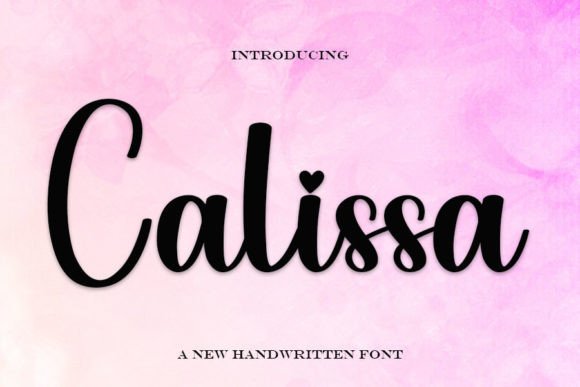
Journey into the world of refined elegance with Calissa Font, a captivating script font that will leave you spellbound. Experience the fusion of timeless beauty and modern aesthetics as you create designs that exude charm and sophistication. Let Calissa's graceful strokes and elegant curves transport you to a realm of creative possibilities.
Indulge in the allure of Calissa's distinct character, masterfully crafted by the skilled hands of putrasyahreza00. Each letter dances across the page with a unique flair, adding a touch of personality to your projects. Its effortless flow and impeccable balance create a visual symphony that will captivate your audience.
Unleash your creativity and let Calissa guide you towards stunning designs. Its versatility knows no bounds, making it the perfect choice for a wide range of projects. Whether you're crafting logos, branding materials, website designs, or social media graphics, Calissa will elevate your work to new heights.
With Calissa Font, you'll discover a world of endless possibilities. Its elegant charm will add a touch of sophistication to your wedding invitations, greeting cards, and personal stationery. Create eye-catching posters, flyers, and brochures that demand attention. Transform your social media posts into works of art, capturing the hearts of your followers.
Calissa Font is more than just a font; it's an artistic expression that will bring your creative visions to life. Embrace its timeless beauty and let your imagination soar. Experience the magic of Calissa and embark on a journey of design excellence.